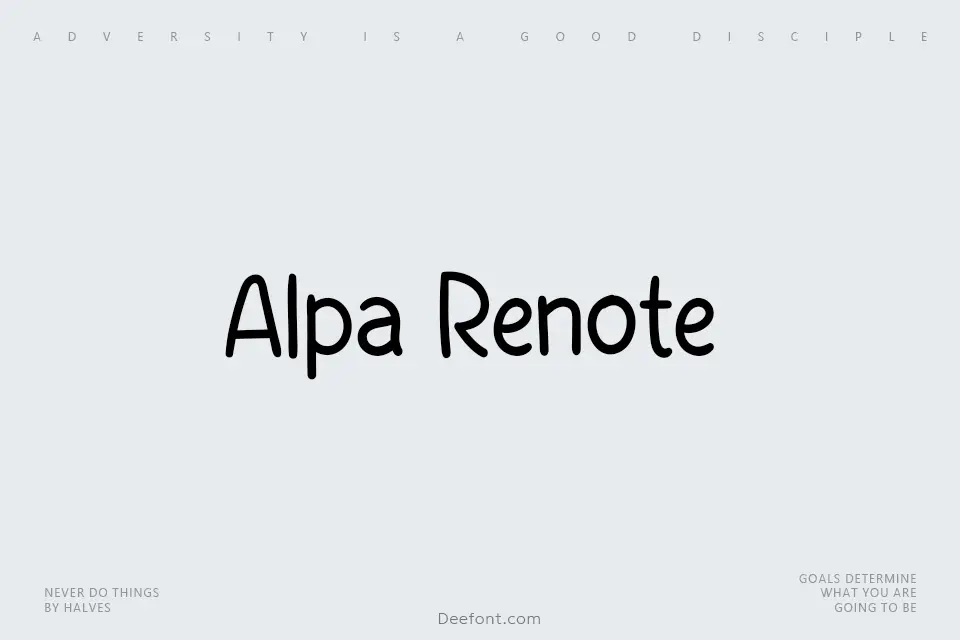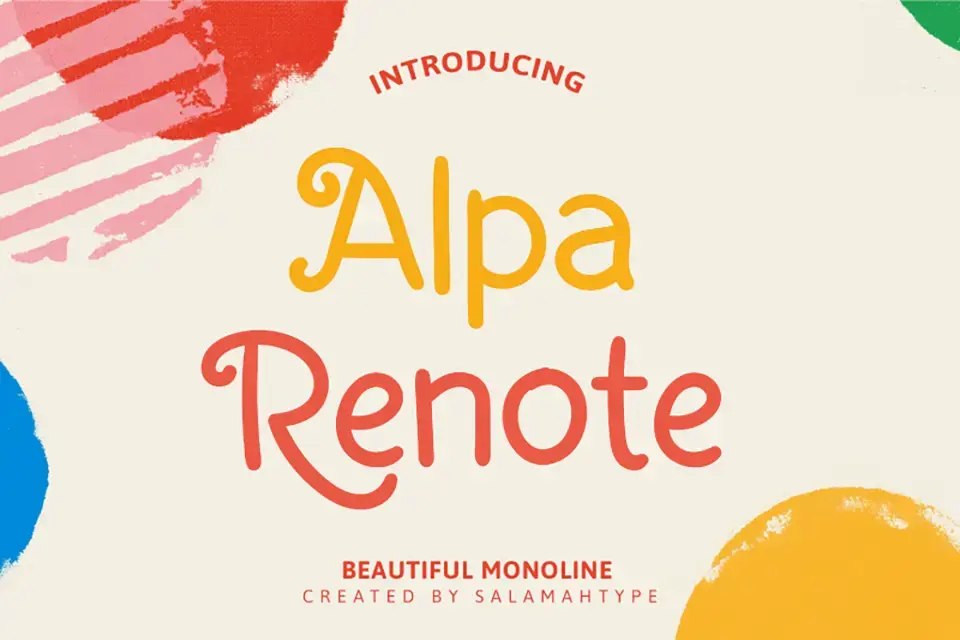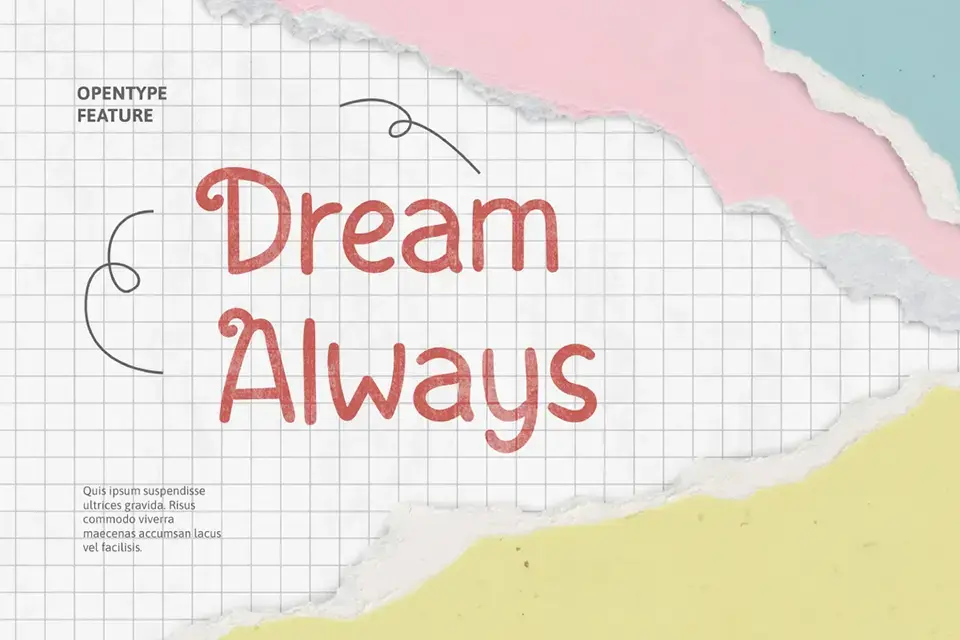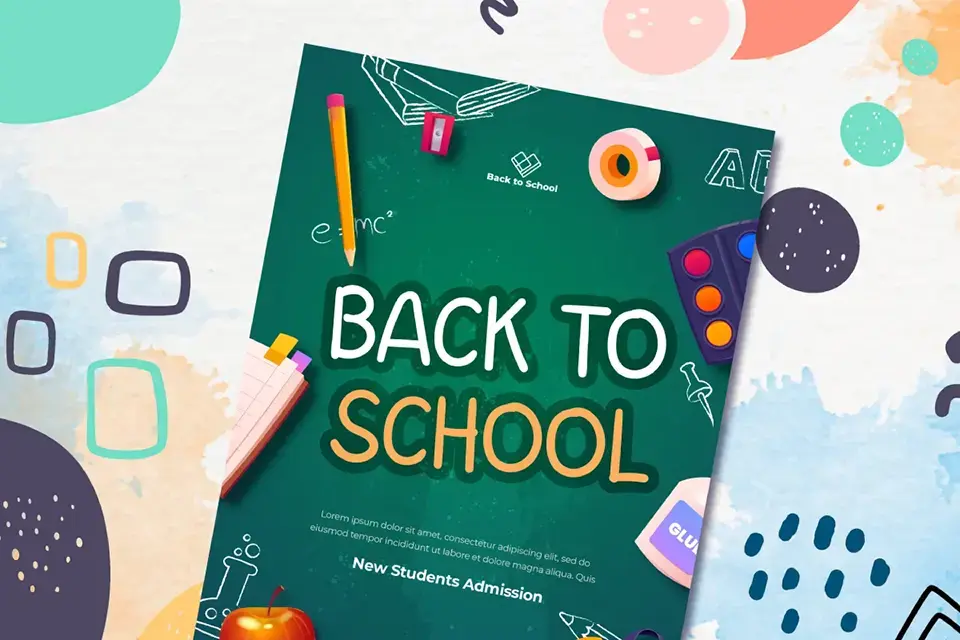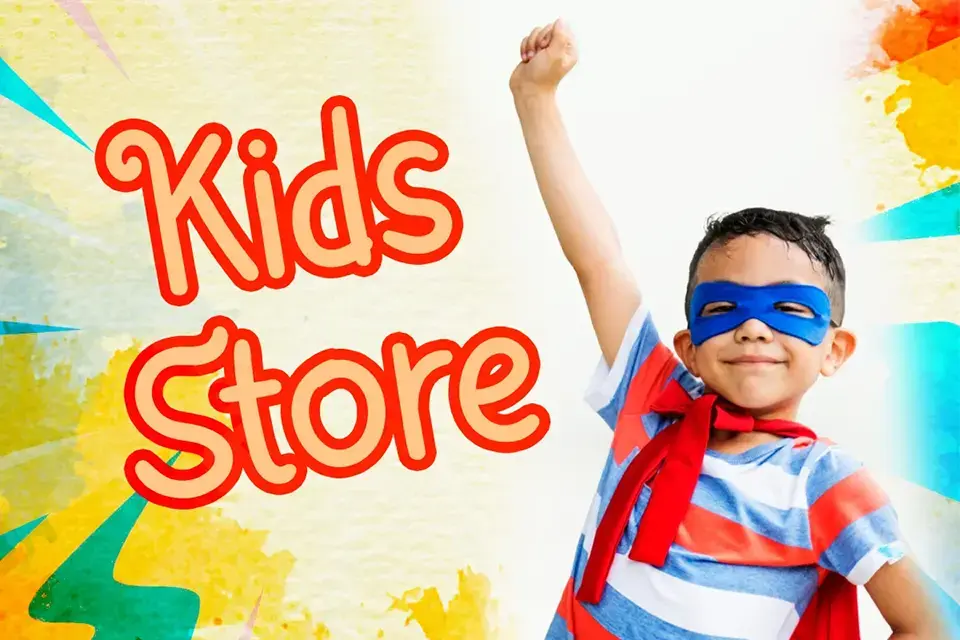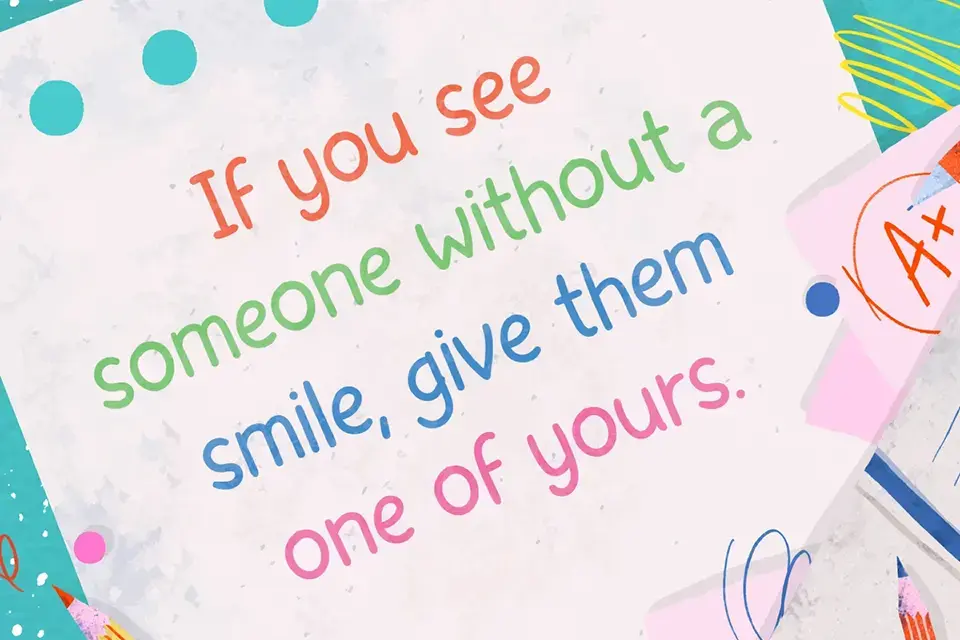
Alpa Renote Font
Alpa Renote is a beautifully crafted handwritten typeface featuring a casual monoline script with playful character and rounded edges. This charming font merges informality with sophistication, delivering a warm, personal touch to any design. Perfect for posters, titles, stationery, logos, greeting cards, and creative packaging. The font’s gentle curves and approachable style make it ideal for children’s products, social media graphics, wedding invitations, and casual brand identity work. Its natural handwriting aesthetic brings personality and authenticity to both fun and professional projects, making it a versatile choice for designers seeking expressive, contemporary typography.